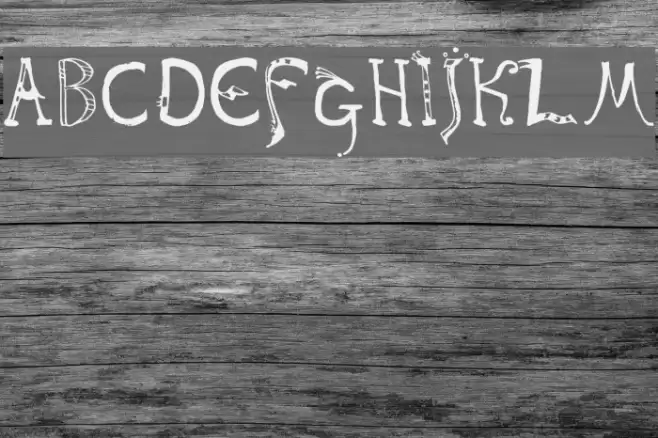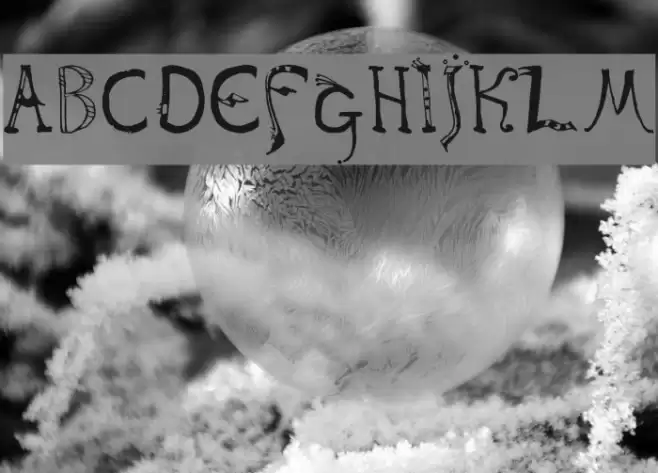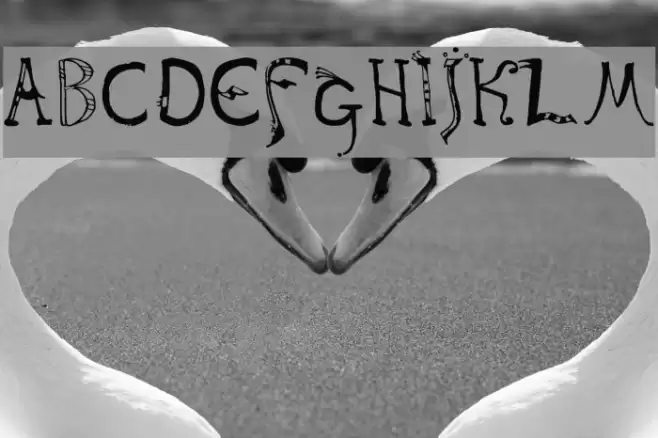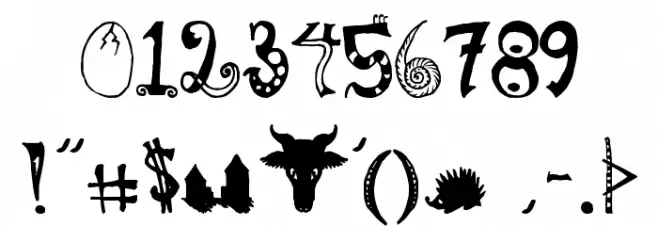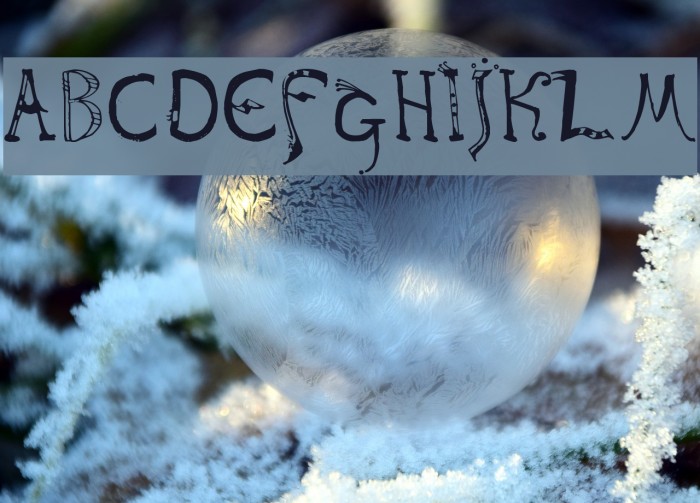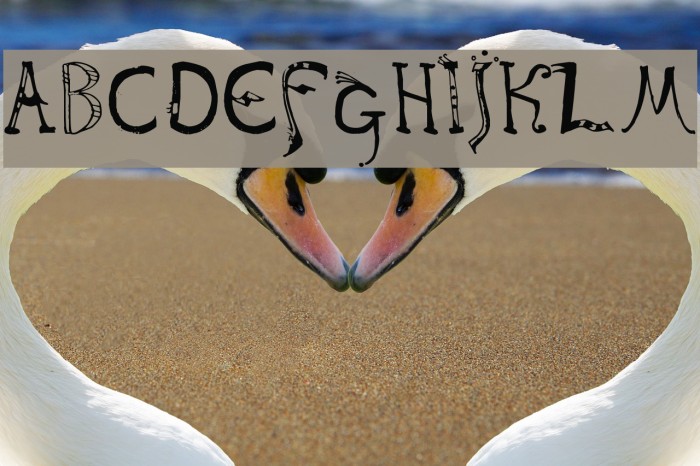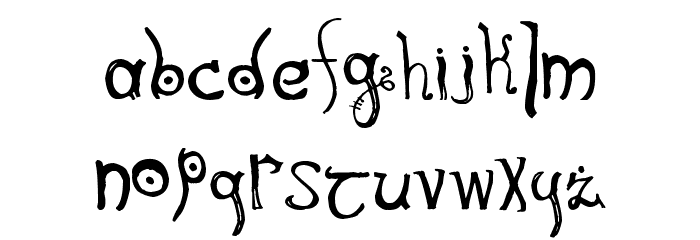
Kitbiya Amerikiya Font
Kitbiya Amerikiya Description
This font is a highly decorative and whimsical typeface, characterized by its playful and artistic design. Each letter is uniquely crafted with intricate details, such as swirls, dots, and lines, giving it a hand-drawn appearance. The uppercase letters are bold and varied in style, with some incorporating elements like arrows or stripes. The lowercase letters maintain the same artistic flair, with a slightly more uniform appearance. Numbers and special characters continue the theme, featuring creative embellishments that make them stand out. This font is perfect for projects that require a touch of creativity and uniqueness.
A whimsical and decorative font with artistic, hand-drawn elements from Gothic fonts.
- Proposed Projects: Ideal for children's books, creative posters, artistic branding, and unique invitations.
- Use Case: Headlines, Logos, Artistic projects